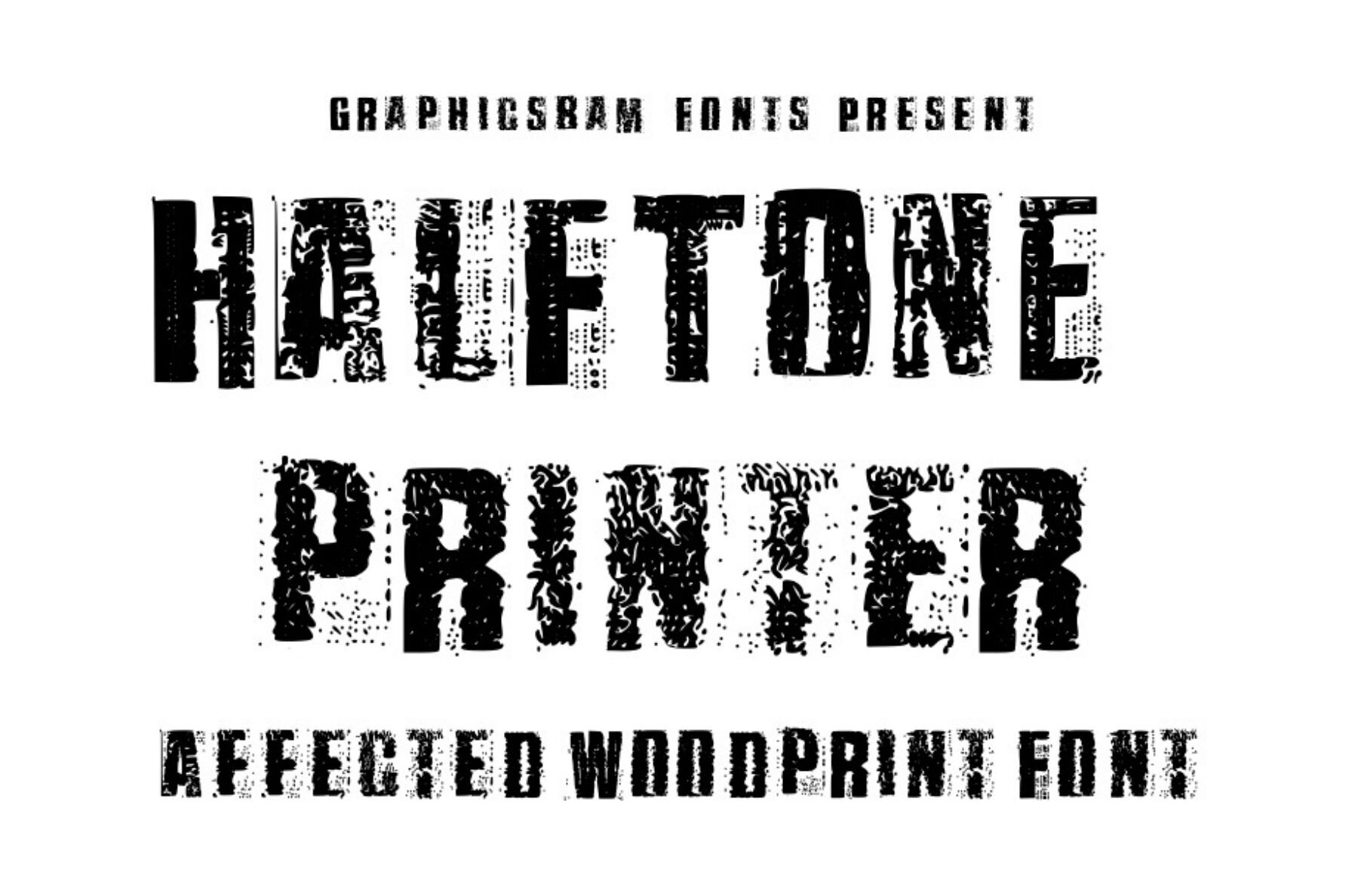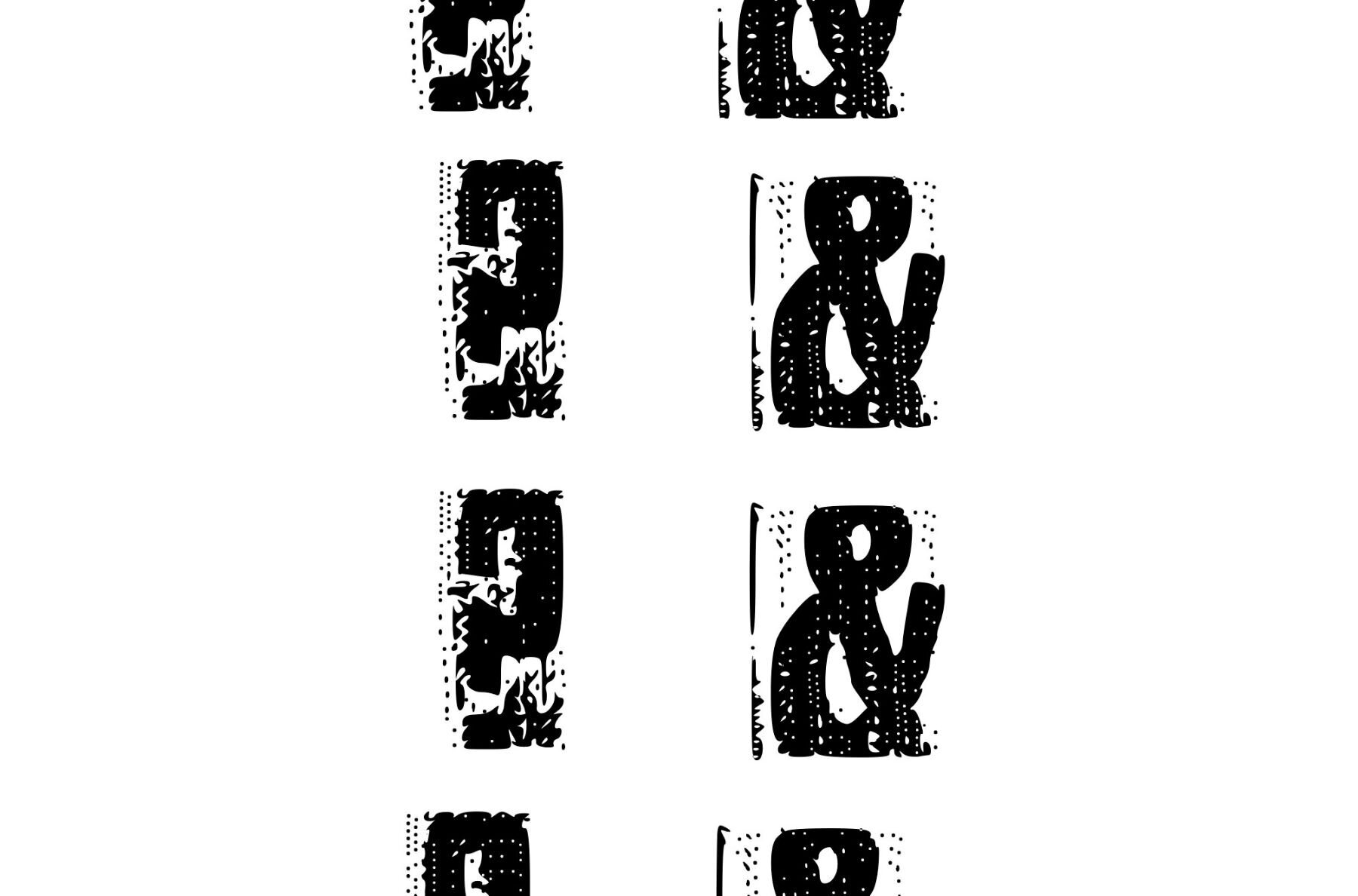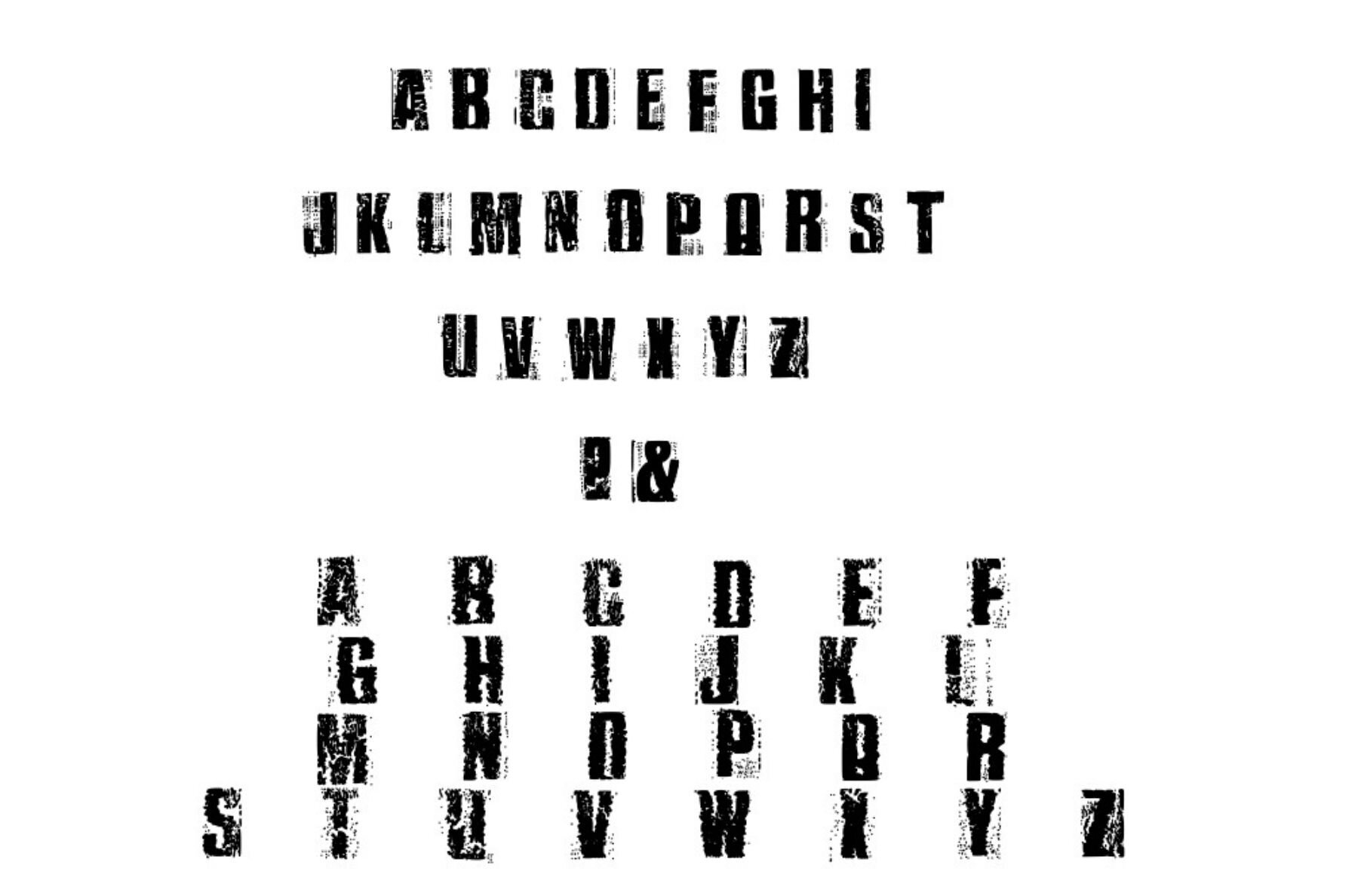
Halftone Printer Font
Halftone Printer
The Halftone Printer Font is your go-to for injecting personality into your designs. It boasts two distinctive styles of uppercase display fonts, exuding a retro vibe reminiscent of classic fax and printer machines. With bold typography and rich wood and halftone textures, this font brings a dynamic flair to any craft or design project. Infuse your work with a striking type punch that captures attention and leaves a memorable impression.Halftone Printer Font